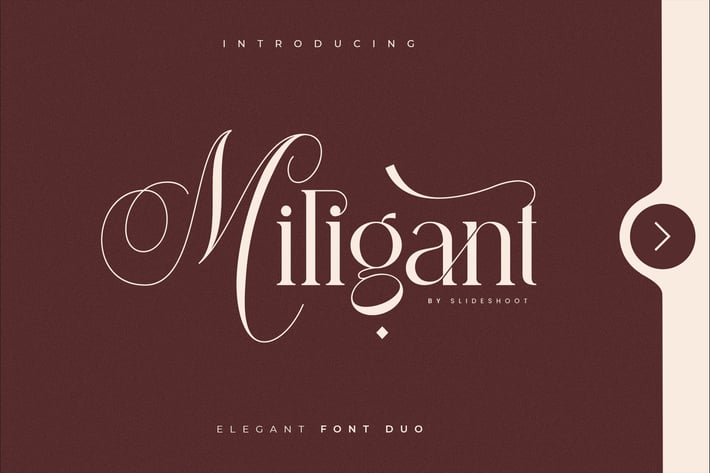
Miligant Font Duo
Miligant Font is a stunning combination of a calligraphy script font and a modern serif font. He has a beautiful character. Very suitable to be combined with invitation card designs, company logos, film titles, film names, business cards, book titles, brand names and various other designs. Miligant Font is a stunning combination of a calligraphic script font and a sleek modern serif font that exudes sophistication and elegance. Its stylish alternation and binding make this font the perfect partner for any project.